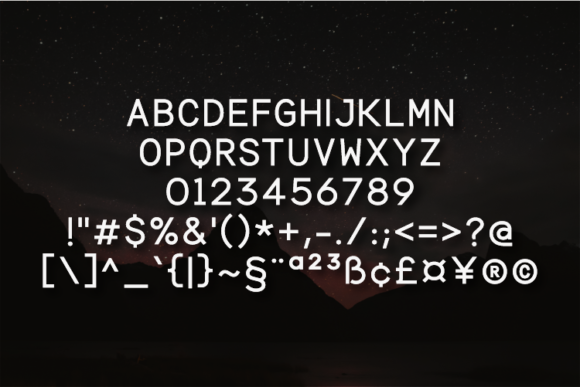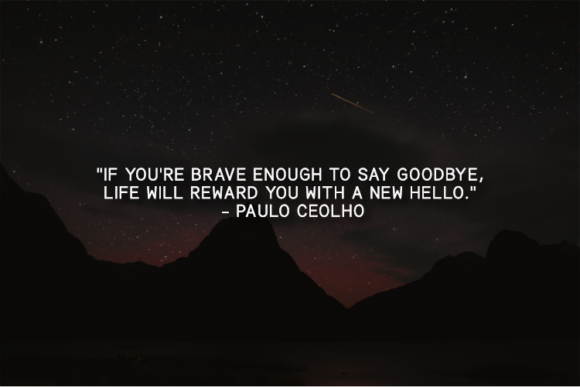
Introduction to Lolliete Font
Have you ever found yourself staring at a blank canvas, eager to bring your creative vision to life? The thrill of starting a new project is exhilarating, but sometimes, it’s the little things that can make all the difference. For designers, the right font can be the spark that ignites their imagination and sets their creative project apart from the rest.
Enter Lolliete Font, a sleek and sophisticated sans serif font that’s poised to become your new design resource. With its minimalist aesthetic and high-quality design, Lolliete Font is the perfect addition to any creative project. Whether you’re working on a design for a website, a logo, or even a social media post, Lolliete Font’s versatility and ease of use make it an invaluable asset for designers.
Key Features of Lolliete Font
• High-quality design resource ideal for creative projects, offering a unique and elegant touch.
• Features a transparent background, allowing for seamless integration into various design elements.
• Lolliete Font is a versatile design resource, suitable for use in logos, headings, and body text, adding a touch of sophistication to any creative project.
Honest Review: Lolliete Font
I recently stumbled upon the Lolliete Font while searching for a free design resource for my latest creative project. I was excited to give it a try and see if it would meet my expectations.
• ✨ Unique and elegant design aesthetic
• ✨ High quality and crisp font rendering
• ✨ Wide range of language support
One of the standout features of the Lolliete Font is its versatility. It can be used for a variety of creative projects, from web design to print materials. The font also features a transparent background, making it easy to use on both light and dark backgrounds.
• ⚠️ Limited character set and glyph support
Overall, I was impressed with the Lolliete Font and its potential for use in creative projects. While it may have some limitations, its unique design aesthetic and high quality make it a valuable resource for designers.
The Lolliete Font is a high-quality, free download design resource perfect for any creative project. With its unique and stylish design, it’s ideal for adding a touch of elegance to your visual content.
Tips for Getting the Most Out of Lolliete Font
Use the Lolliete Font with a transparent background to create a unique and stylish design.
Experiment with different font sizes and colors to achieve the desired effect.
Combine the Lolliete Font with other design elements to create a visually appealing design.
Common Use Cases for Lolliete Font
The Lolliete Font is perfect for:
• Wedding invitations and stationery.
• Business cards and marketing
Alternatives to Lolliete Font
Pacifico Font is a beautiful, modern script font that’s perfect for creative projects that require a relaxed, beachy vibe. It’s ideal for branding, packaging, and other design elements where a casual, laid-back feel is desired.